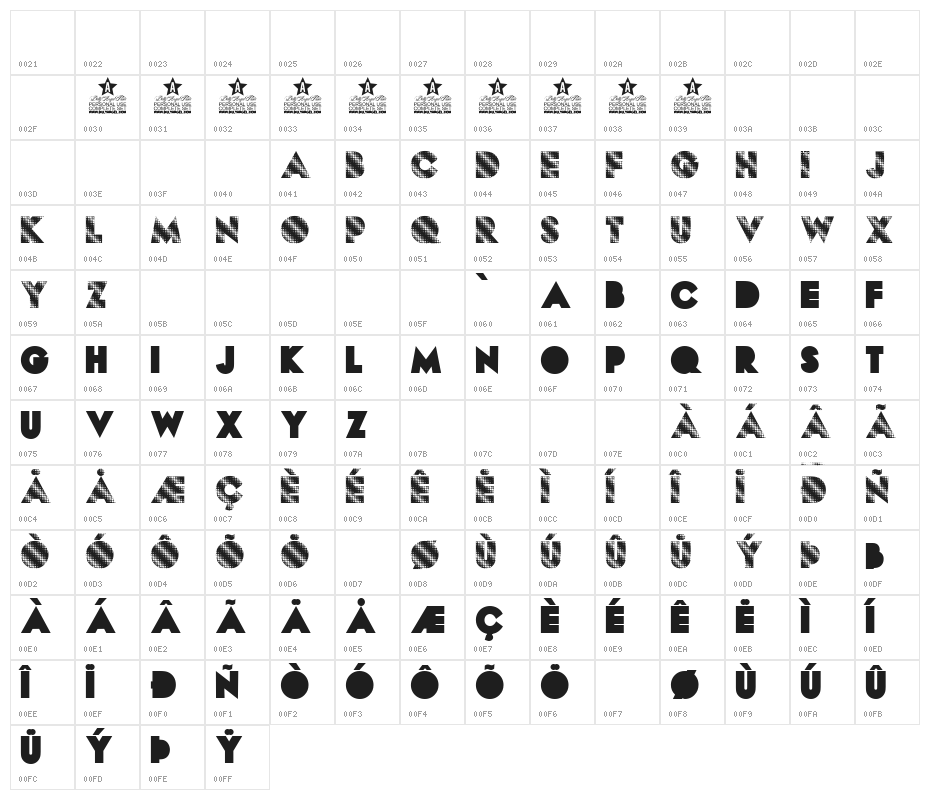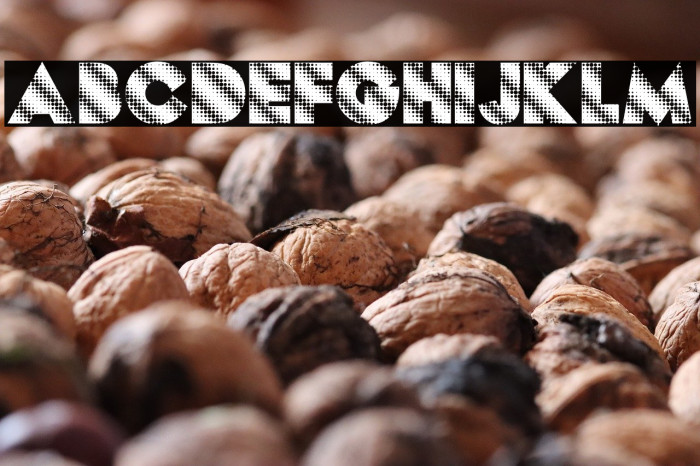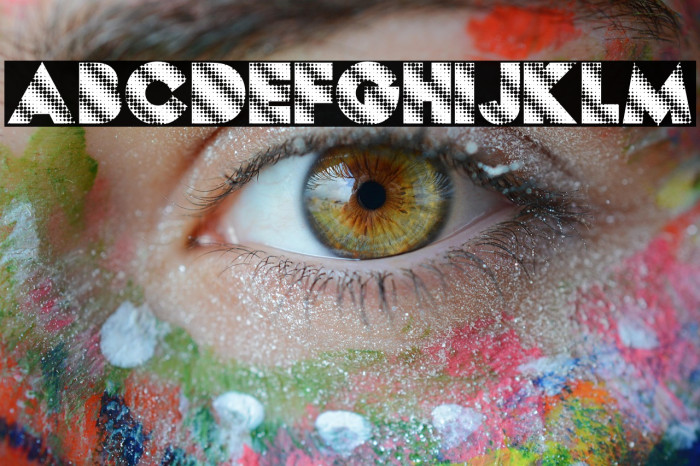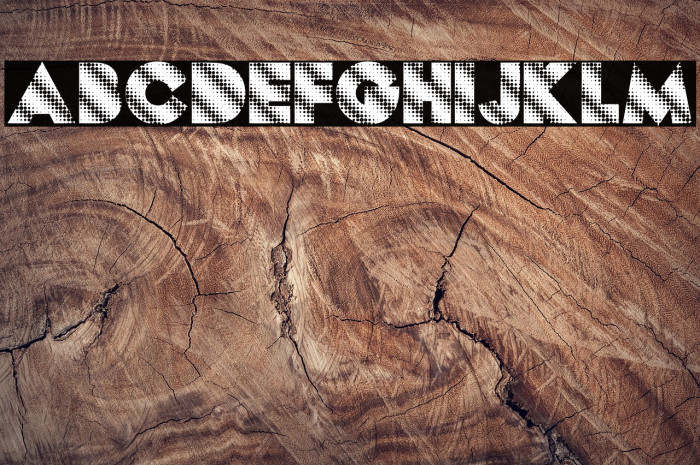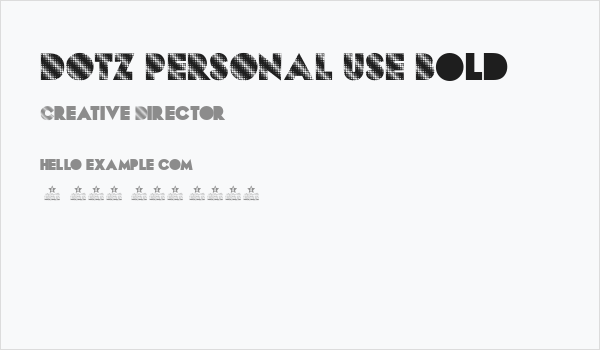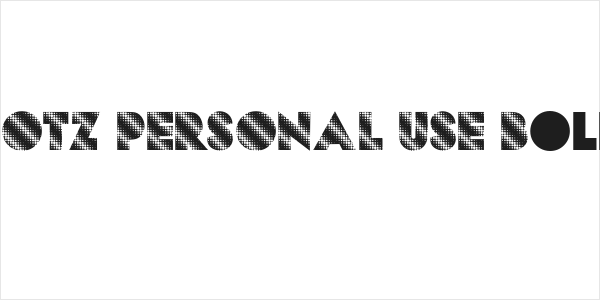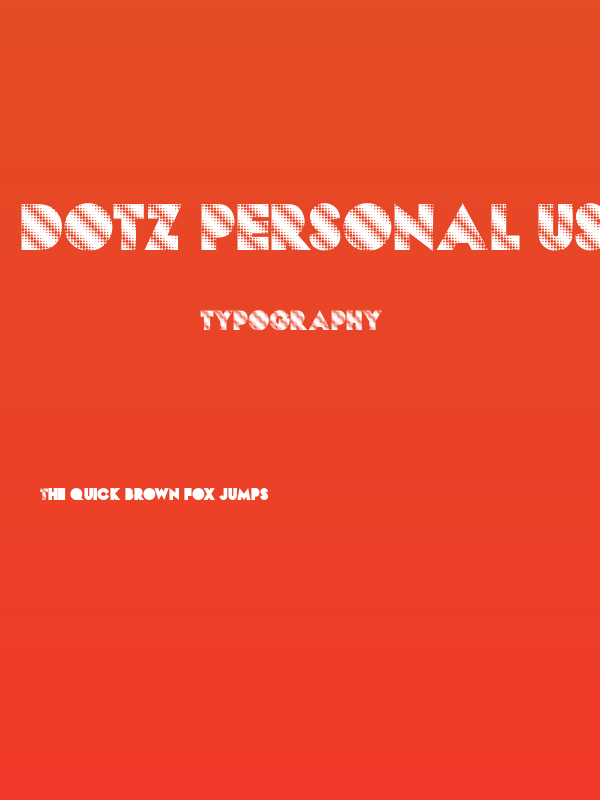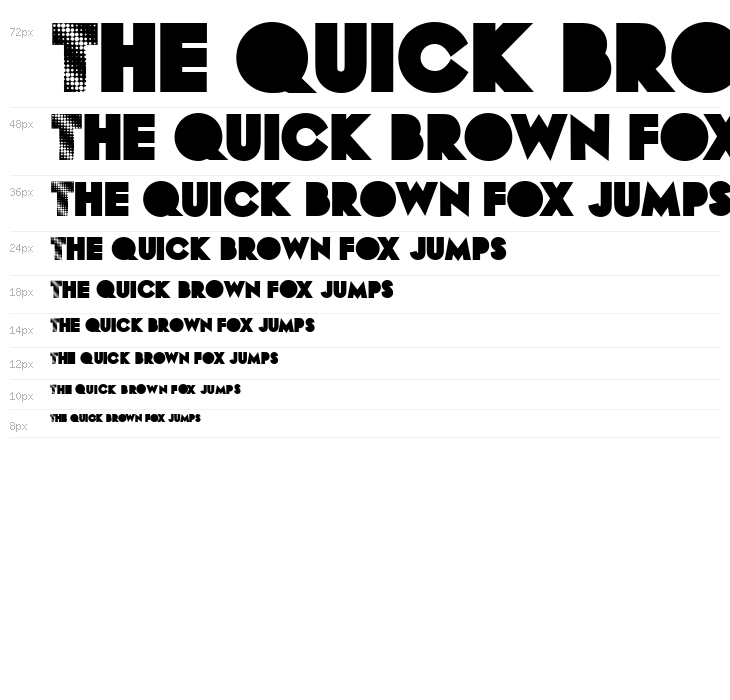
DOTZ PERSONAL USE Bold Font
DOTZ PERSONAL USE Bold Description
This bold, decorative font features a unique, geometric style with a distinct halftone pattern on the first row of letters, creating a visually striking effect. The second row presents solid, bold letters with sharp angles and clean lines, offering a modern and impactful appearance. The font's design is highly stylized, making it ideal for attention-grabbing headlines or artistic projects. Its bold weight and decorative elements suggest a playful yet assertive tone, suitable for creative and contemporary designs.